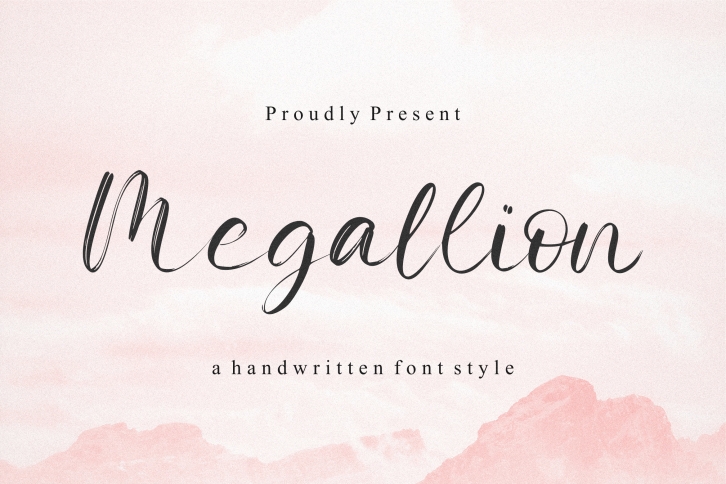
Megallion is an enchanting handwritten font. This versatile script font has a wide spectrum of applications ranging from greeting cards to headlines and is guaranteed to add a romantic feel to your next project.